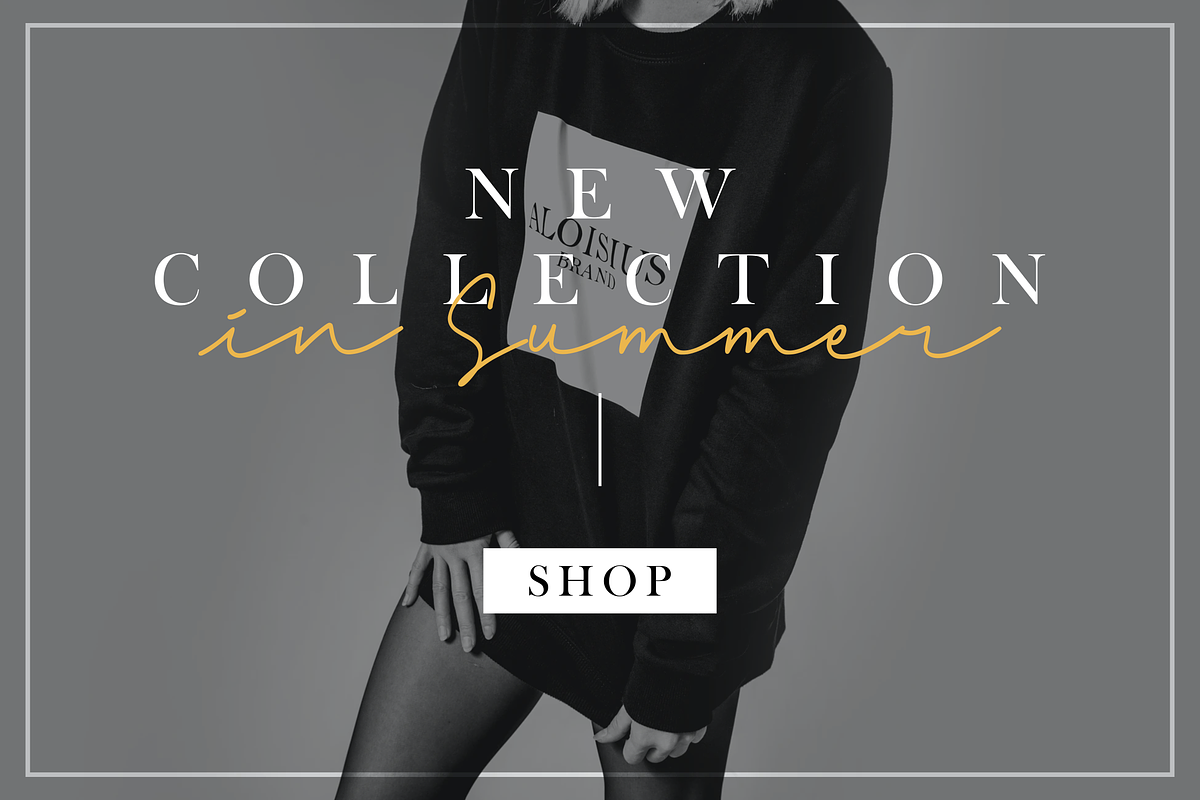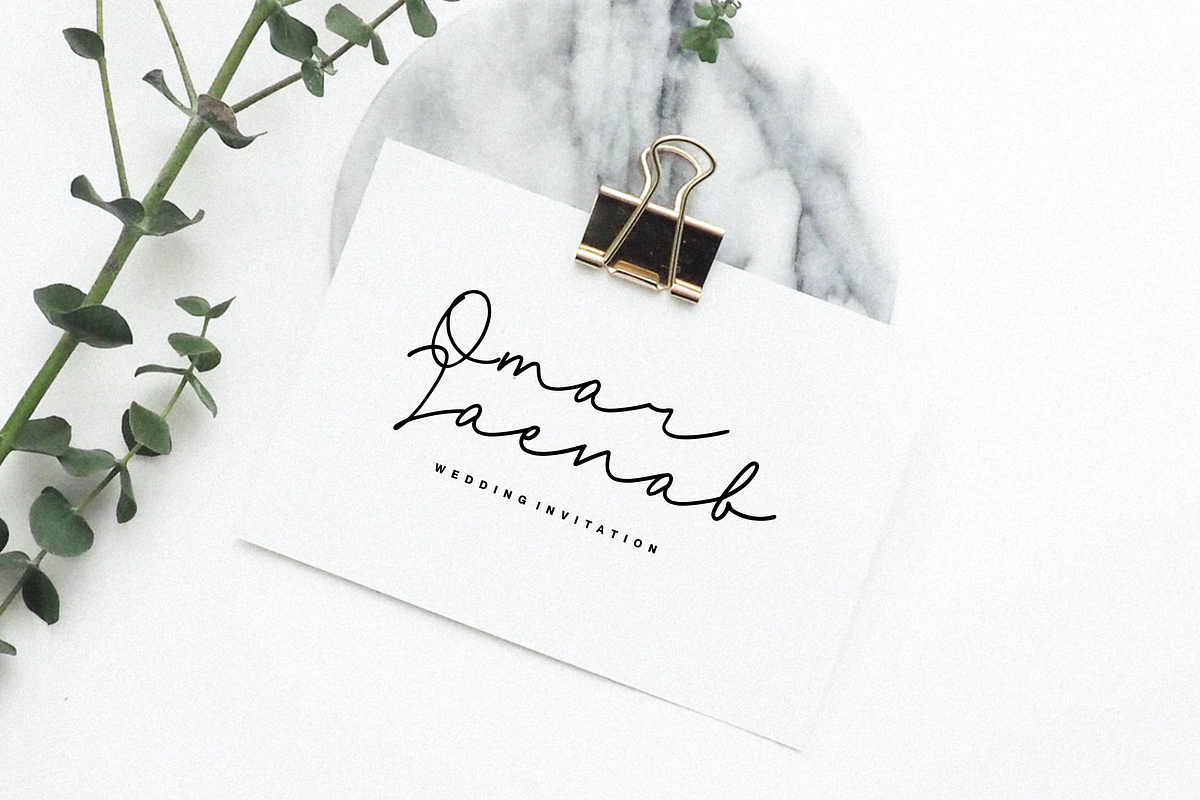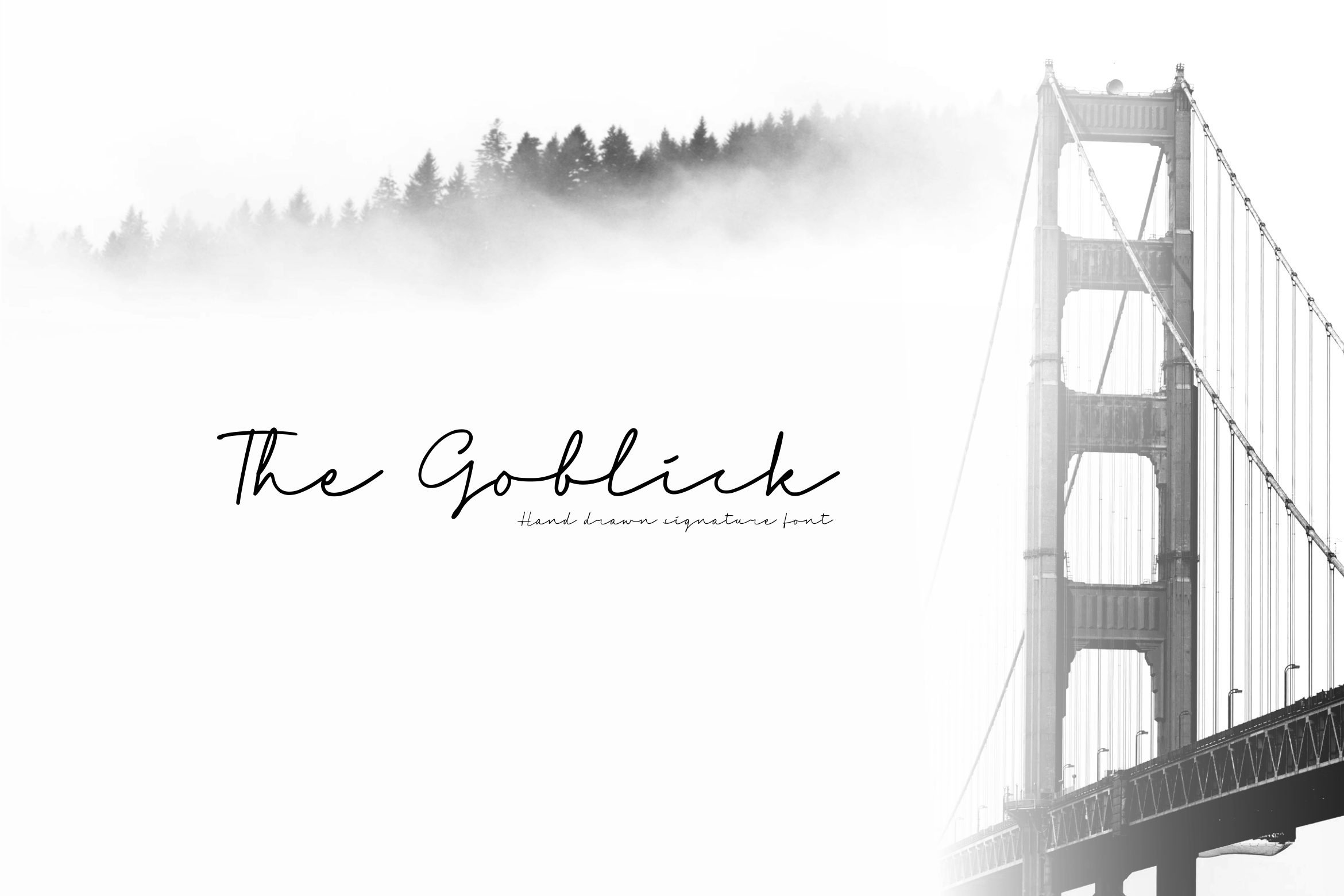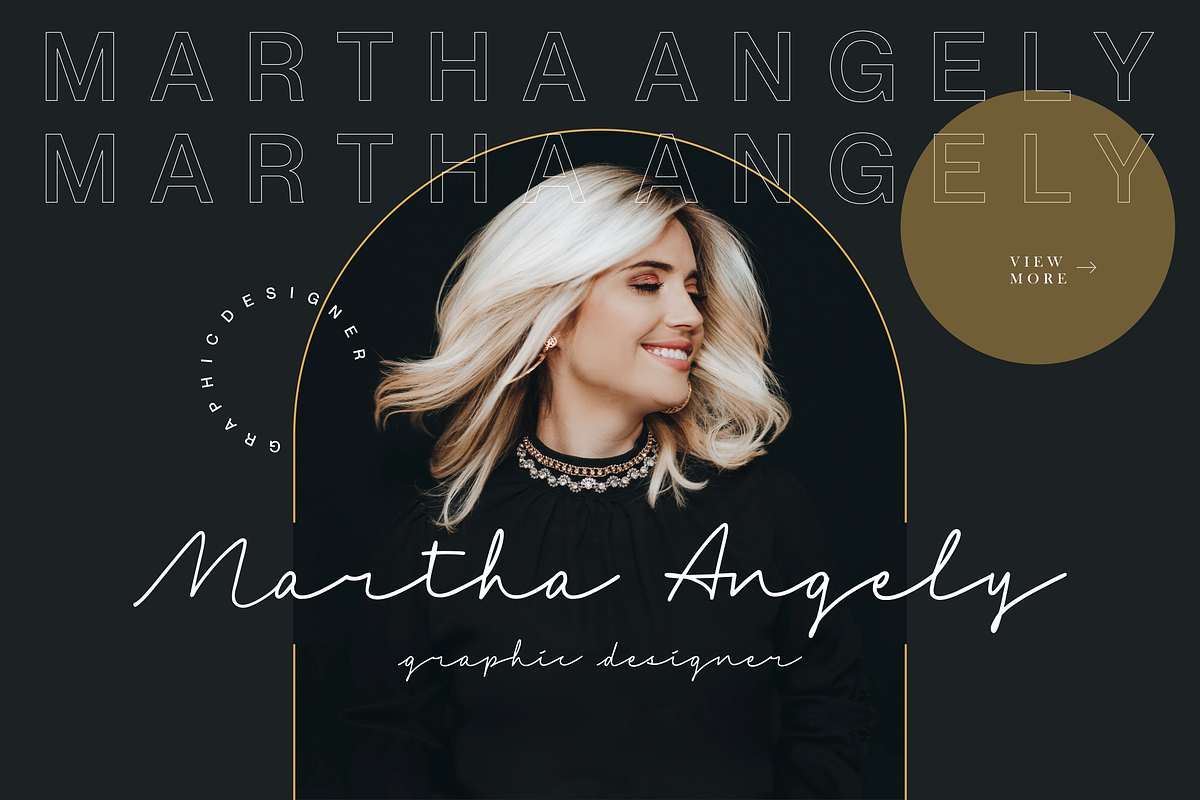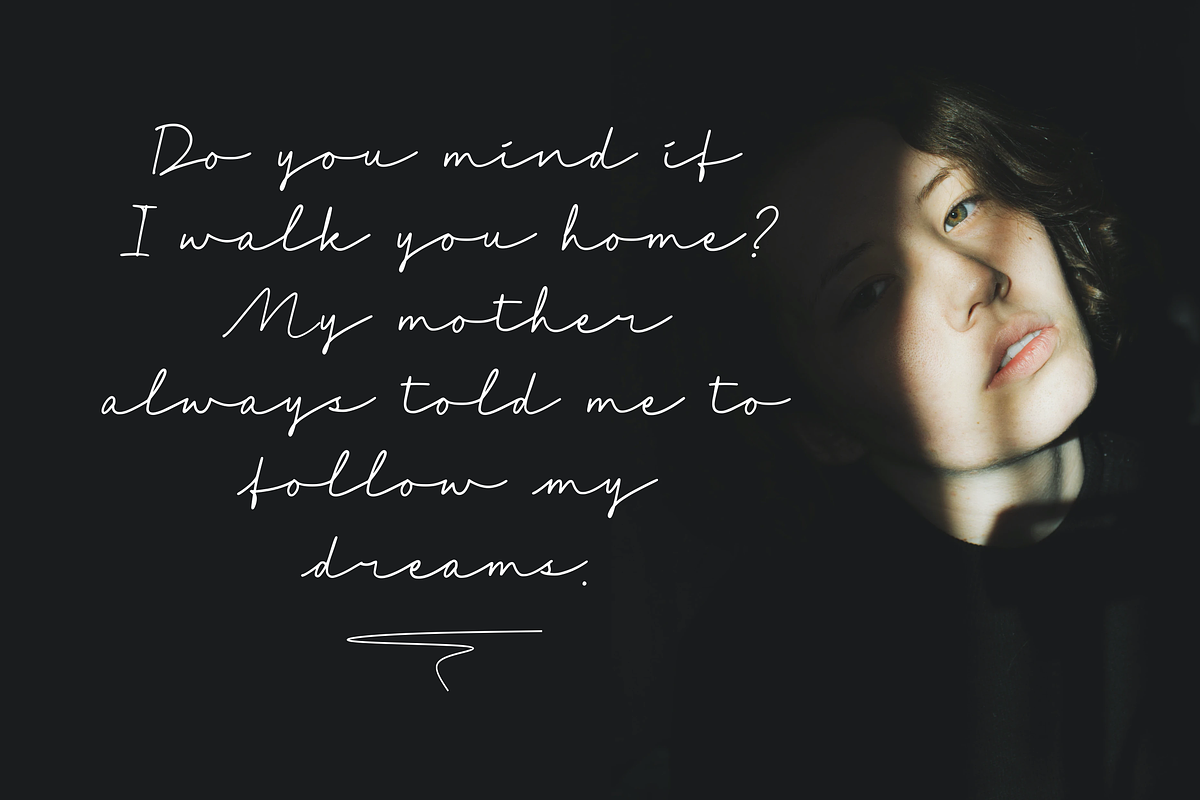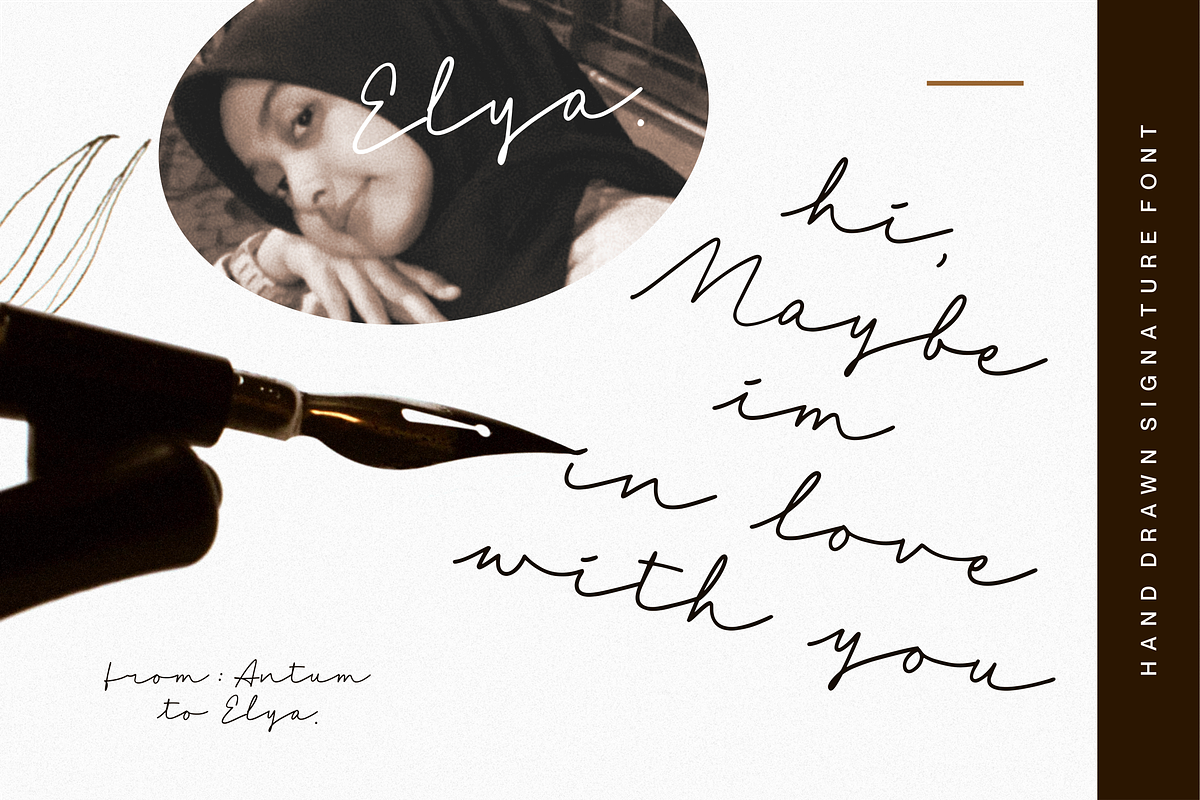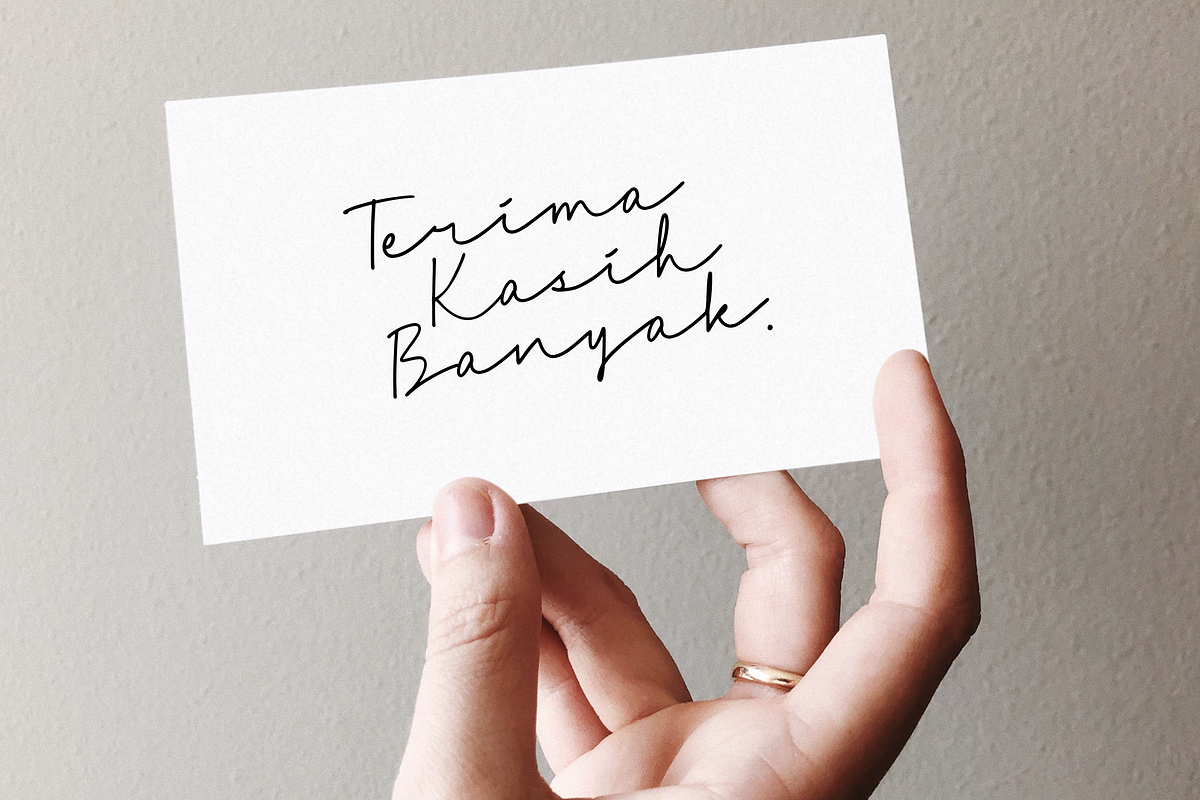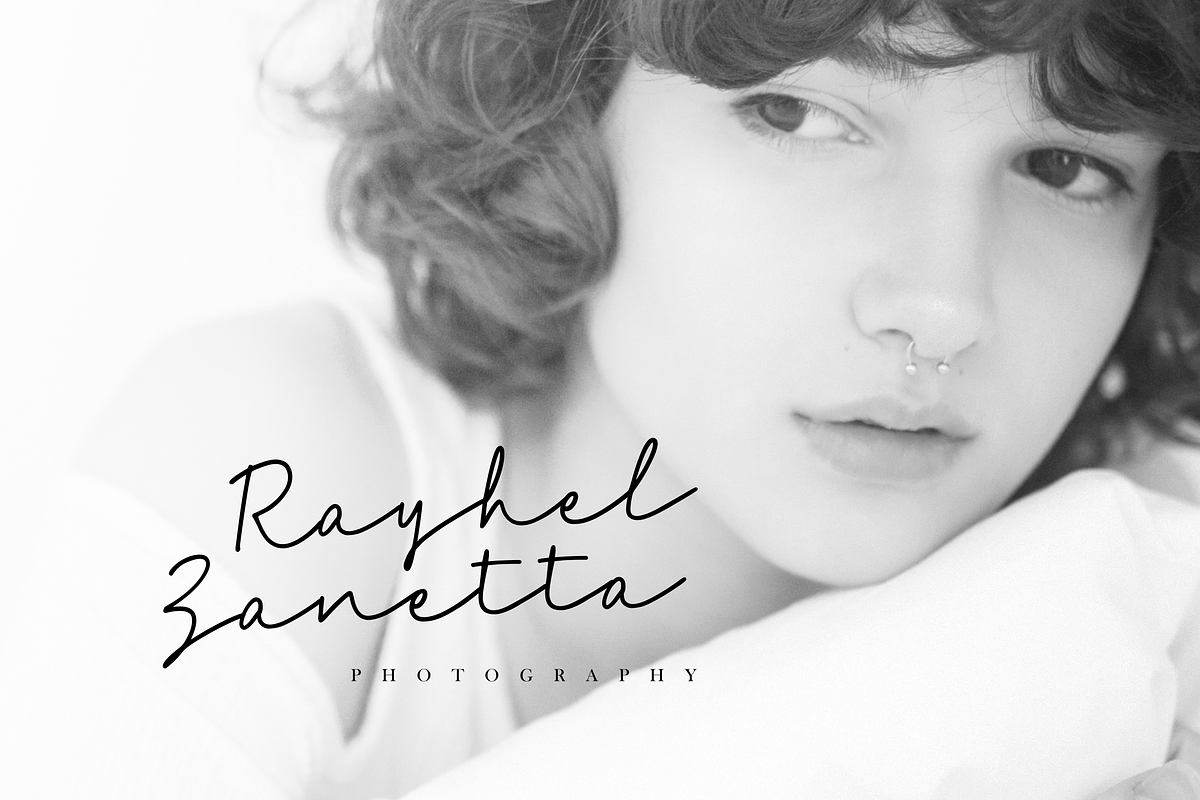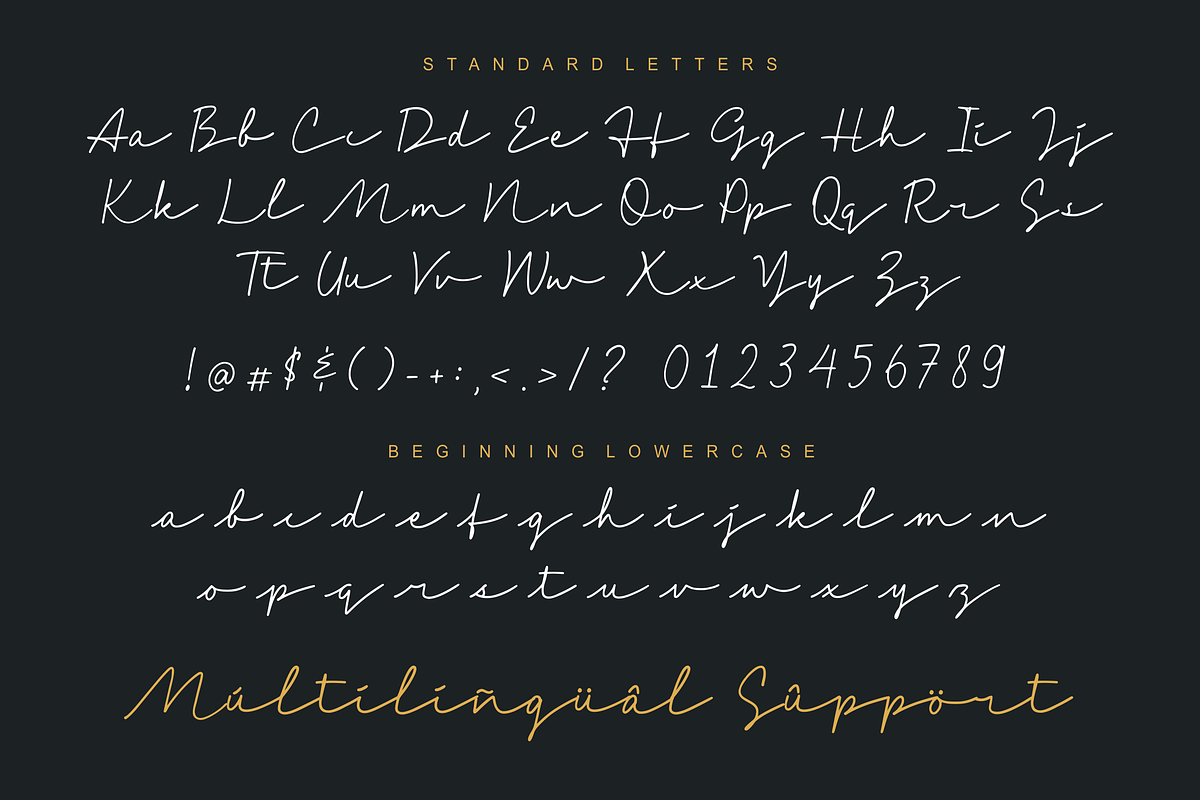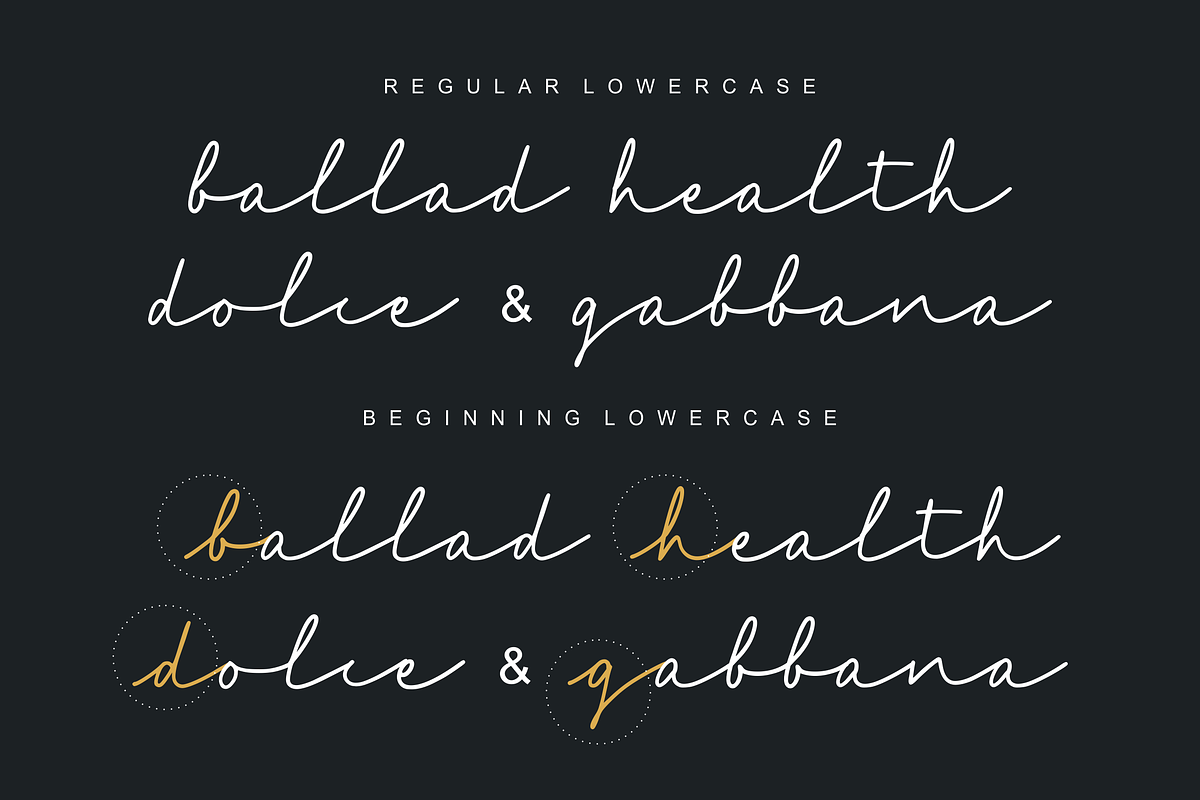
The Goblick Font
Introducing by Allouse.Studio
Proudly Present, The Goblick
The Goblick is a Handdrawn Signature Font.
The Goblick is perfect for product packaging, branding project, megazine, social media, wedding, or just used to express words above the background.